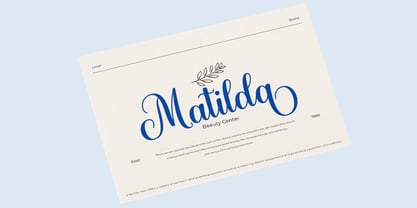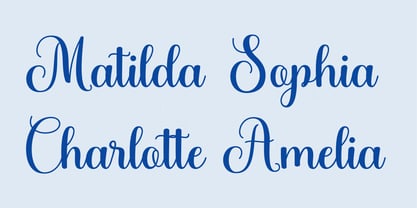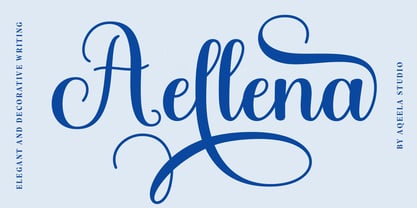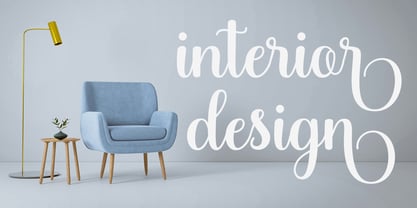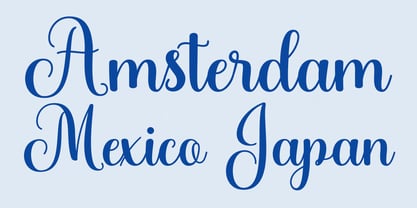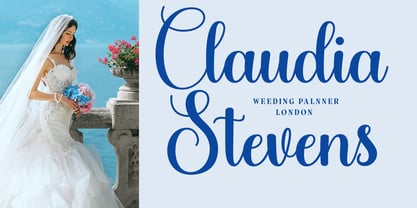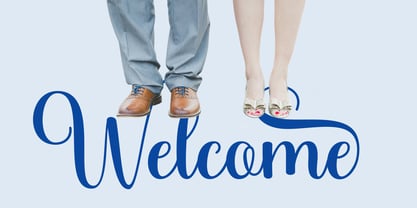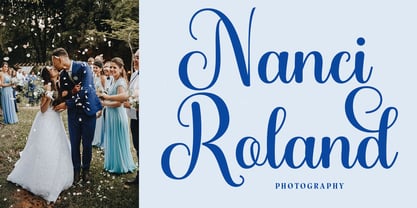
Aellena
von Aqeela Studio
Die Schriftfamilie Aellena wurde von Muhammad Nasir entworfen und von Aqeela Studio veröffentlicht. Aellena enthält 1 Stile.
Aellena is a graceful and elegant script font that captures the essence of flowing handwriting. Its graceful curves and delicate flourishes evoke a sense of sophistication and femininity. The font's light and airy feel lends itself well to designs that require a touch of elegance and charm. Whether used for wedding invitations, feminine branding, or romantic designs, Aellena adds a touch of sophistication and timeless beauty.
Designer: Muhammad Nasir
Herausgeber: Aqeela Studio
Foundry: Aqeela Studio